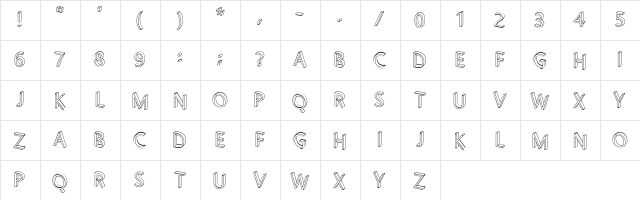
Letterblocks Regular
Design Context for Letterblocks Typeface
Letterblocks offers clean, dependable letterforms without strong stylistic allegiance, making it a practical choice for designers who need flexibility.
Pro Tip: Use Letterblocks in both headline and body roles to test its range before committing to a single application.